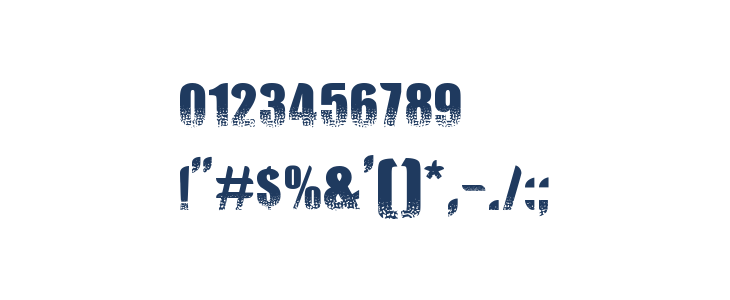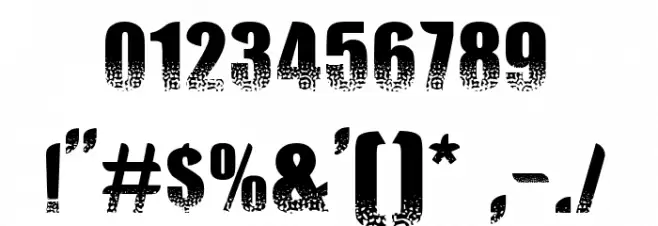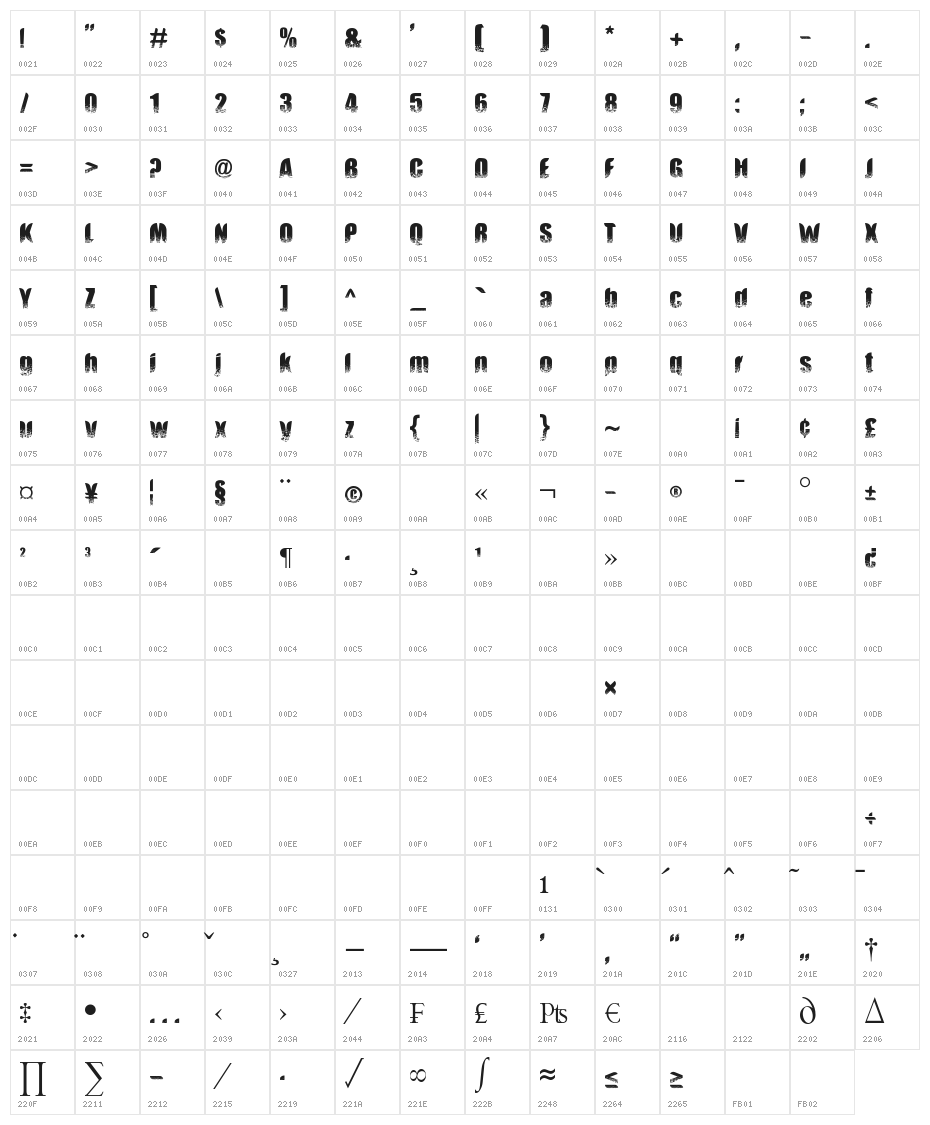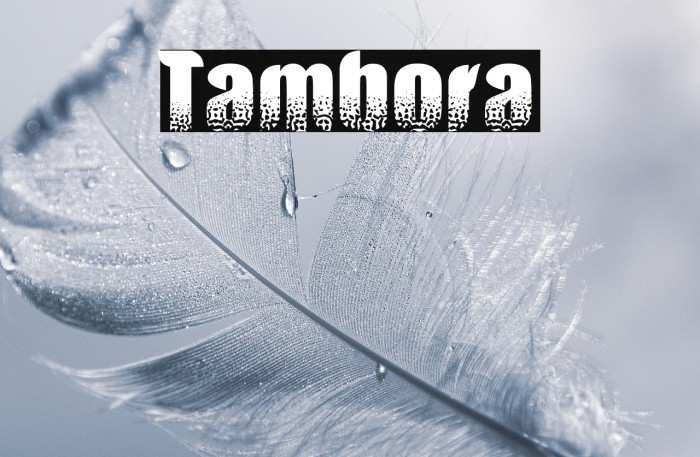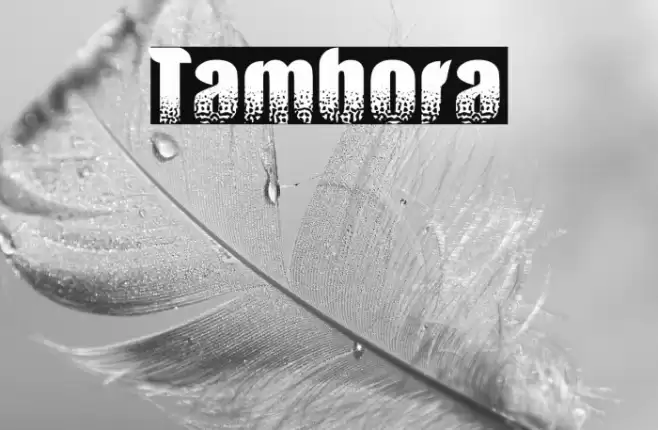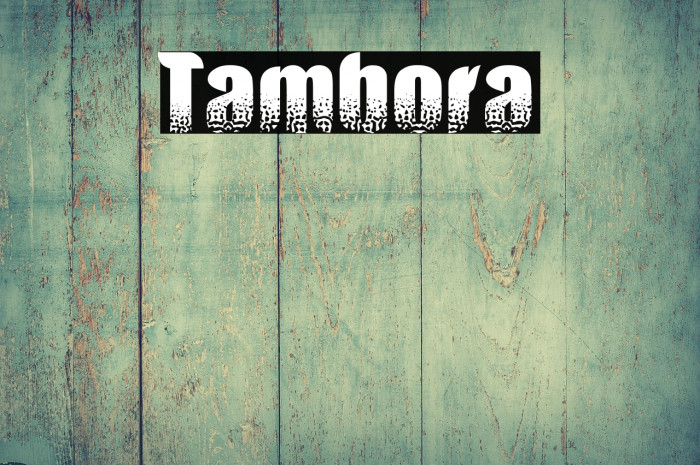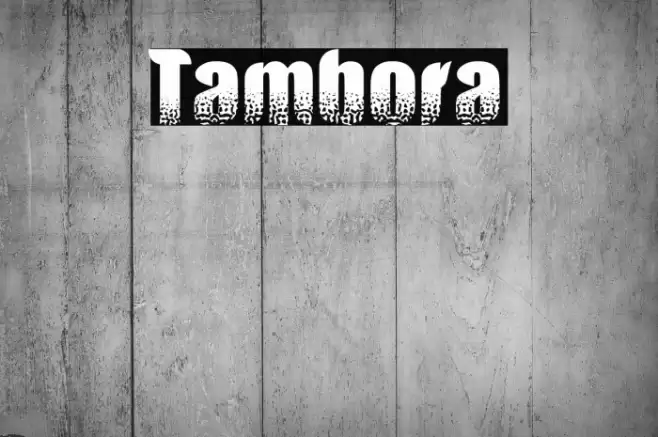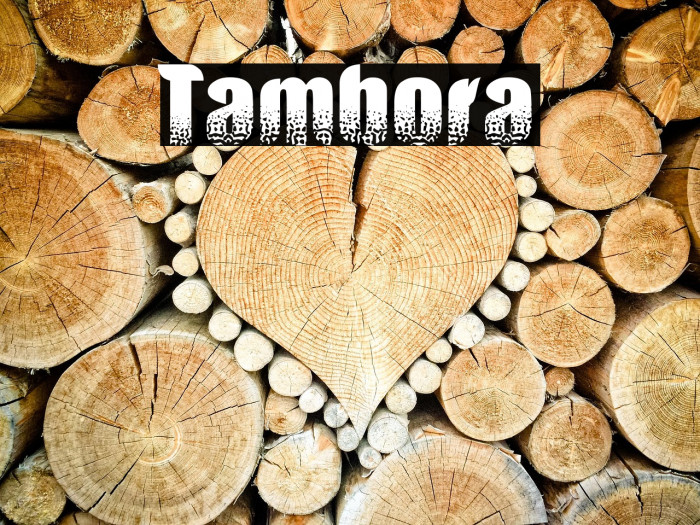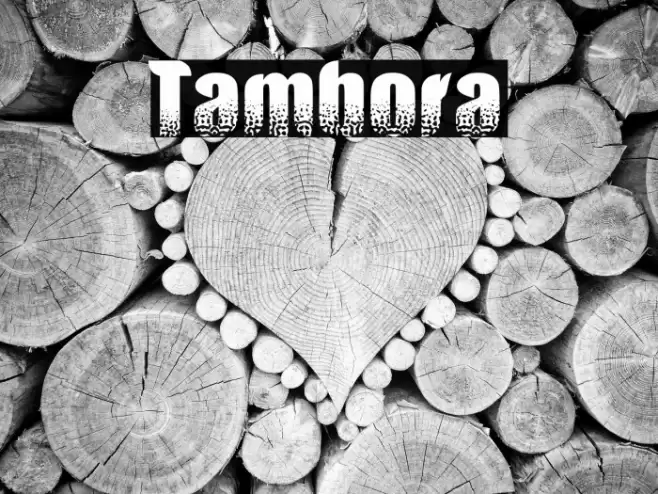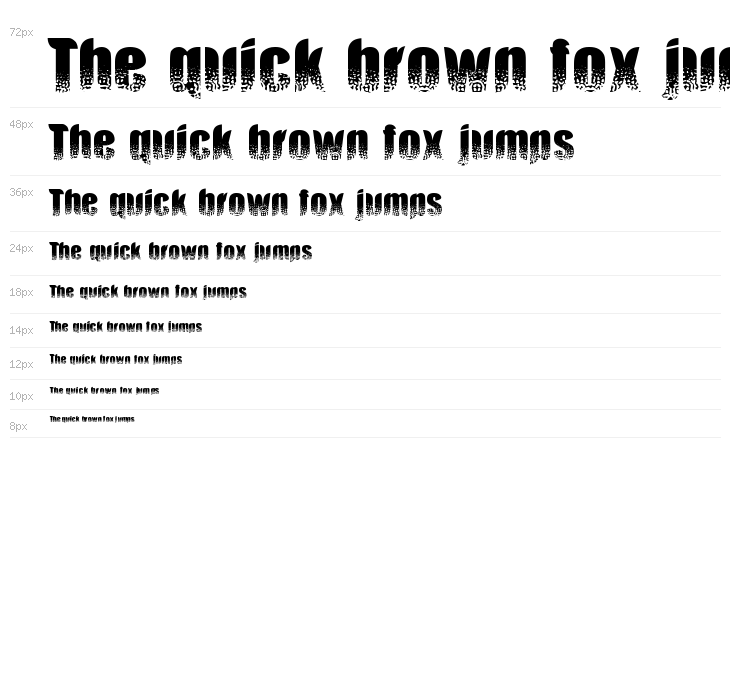
Tambora Font
Tambora Description
This font features a bold and striking design with a unique distressed texture that gives it a rugged and edgy appearance. The uppercase and lowercase letters maintain a consistent width, creating a harmonious look. The numerals and special characters follow the same stylistic approach, ensuring uniformity across all elements. The font's distinct style makes it ideal for projects that require a strong visual impact, such as posters, album covers, or branding materials. Its decorative nature adds a layer of complexity and interest, making it suitable for creative and artistic applications.
| Proposed Projects | Ideal for posters, album covers, branding, and creative projects. |